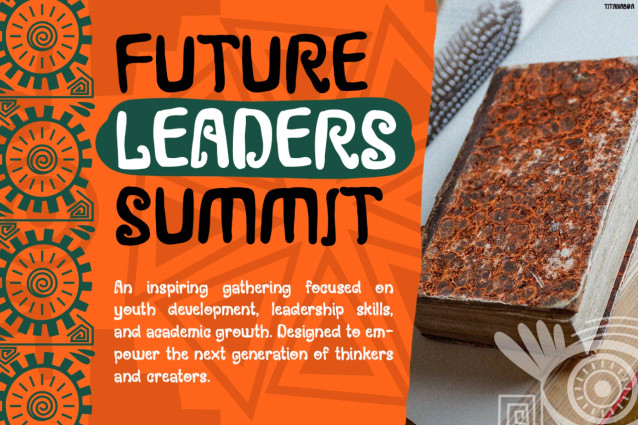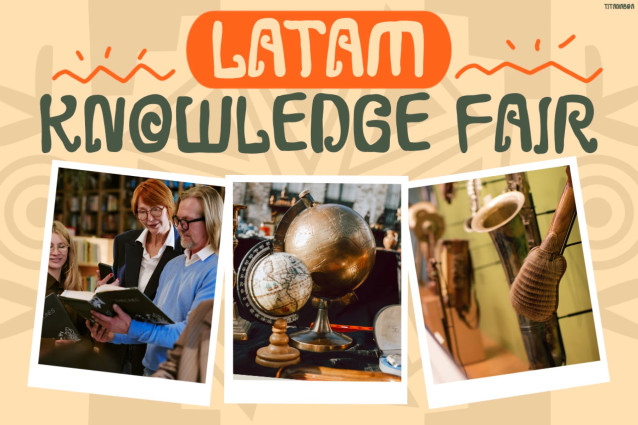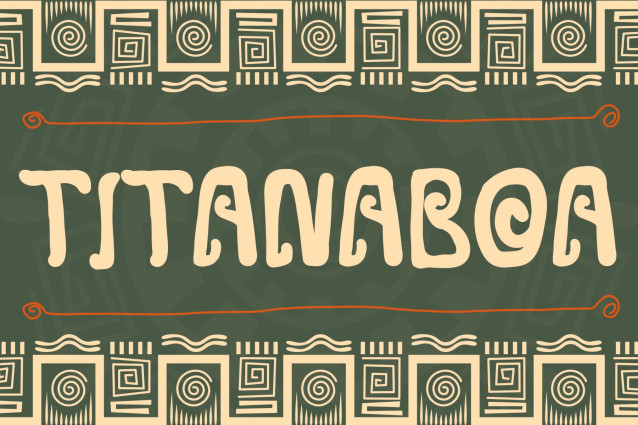
Titanaboa Font
Instagram Font Titanaboa is a bold display font that blends tribal heritage with modern educational design. Not only does it feature handcrafted letterforms, but it also incorporates ethnic-inspired details that create a unique visual identity. Moreover, its decorative geometric elements add cultural depth and authenticity.
In addition, the font delivers a warm and approachable personality that helps designs feel more engaging. Furthermore, its strong structure ensures excellent readability across both print and digital media. As a result, every headline, poster, or social media graphic becomes more memorable. Meanwhile, the handcrafted aesthetic brings a sense of tradition and creativity to contemporary projects. Additionally, Titanaboa supports 67 languages, allowing creators to communicate with diverse audiences worldwide. Therefore, it is an excellent solution for multicultural and international projects.